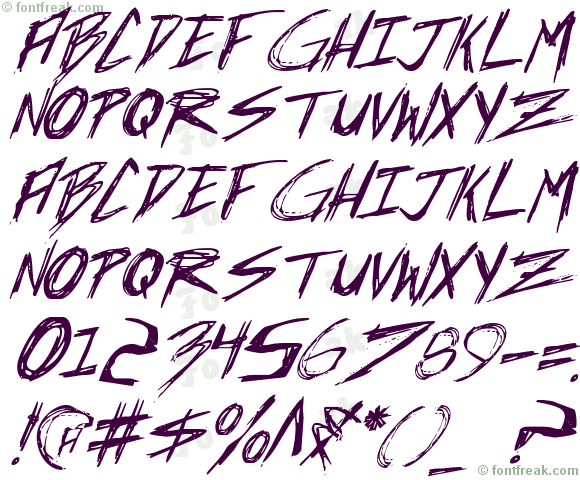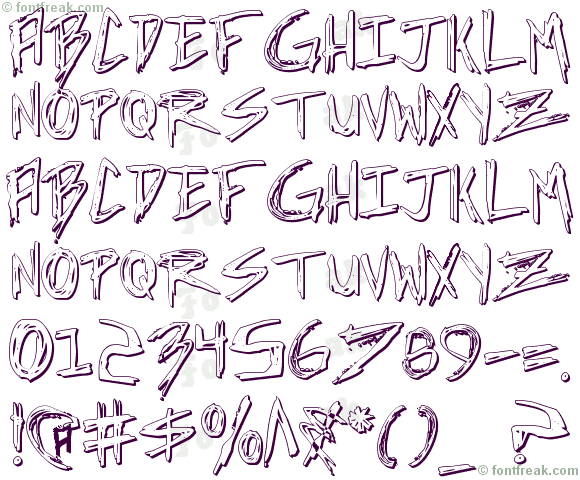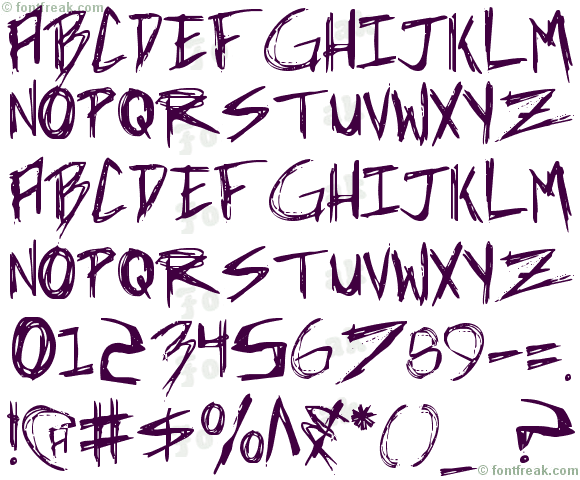
Incubus Shadow
Incubus
Incubus Italic
About Incubus Shadow
The Incubus Shadow font by Daniel Zadorozny is a striking display typeface that blends artistic flair with a contemporary edge. Released in 2008 under the Iconian Fonts banner, this font falls within the decorative category, making it an excellent choice for projects that require a bold, eye-catching appearance. The visual characteristics of Incubus Shadow are defined by its irregular stroke weight, which creates a dynamic contrast that captures attention. The slightly slanted, italicized design enhances its energetic feel, while the spaced letters contribute to a sense of movement and fluidity. Decorative elements, such as sharp edges and a rugged texture, give the font a unique personality that stands out in various applications.
Ideal use cases for Incubus Shadow include movie posters, where its dramatic flair can evoke excitement and intrigue. It also works well for music event flyers, lending a rebellious spirit that resonates with contemporary audiences. Additionally, this font can elevate the branding of skate shops or streetwear brands, effectively conveying a youthful and urban aesthetic. Graphic designers, small business owners, and content creators looking to infuse their work with a sense of originality will find this font particularly appealing.
What truly sets the Incubus Shadow font apart is its ability to convey emotion and energy through its distinctive style. Whether you aim to create a striking visual for a special event or develop a brand identity that stands out in a crowded market, the Incubus Shadow font free download offers an exciting option to breathe life into your designs. Its unique characteristics and versatility make it a valuable addition to any designer's toolkit.